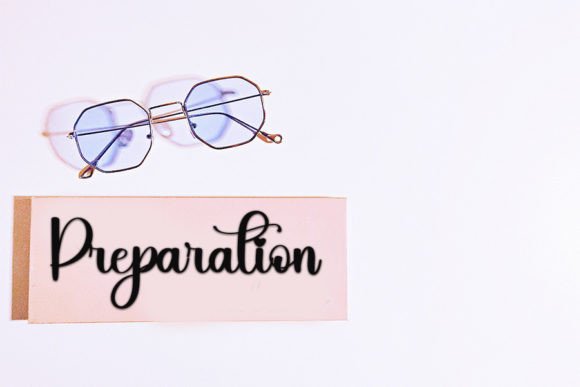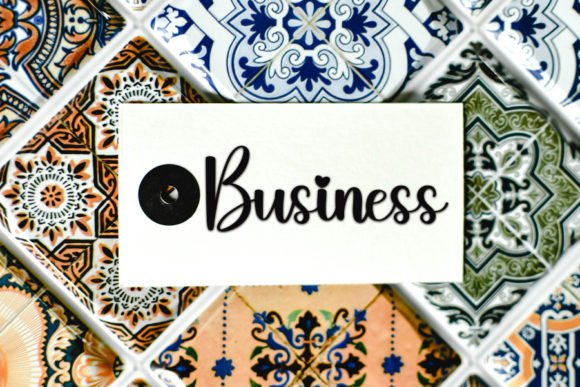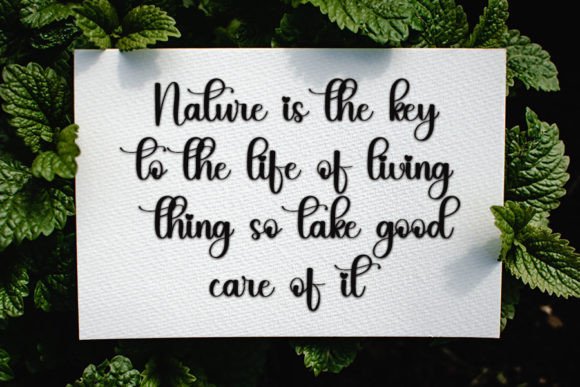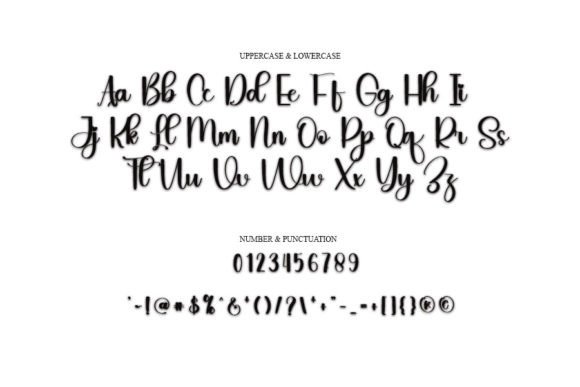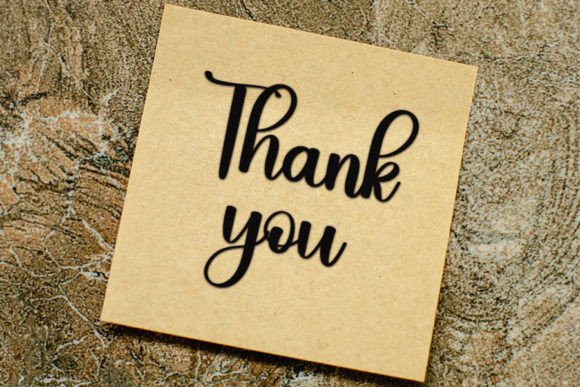
Introduction to Longday Font
Have you ever found yourself staring at a blank page, a blank screen, or a blank canvas, searching for the perfect font to bring your creative vision to life? That’s exactly where I was when I stumbled upon the Longday Font. Its beautiful, handwritten style is like a breath of fresh air, infusing your project with a touch of elegance and sophistication. Whether you’re working on a logo, business card, or social media post, the Longday Font is the perfect design resource to elevate your creative project.
Key Features of Longday Font
- Unique and creative design perfect for various projects, including graphic design, digital art, and creative writing.
- High-quality font with a transparent background, ideal for designers who want to achieve a seamless look in their work.
- Features a high-resolution design (300 DPI) for crisp and clear text, suitable for printing and digital use.
- Designed to be versatile and adaptable, making it perfect for a wide range of creative projects and applications.
Honest Review: Longday Font
- ✨ The Longday Font has a beautiful, elegant feel to it that’s perfect for high-quality designs.
- ✨ The transparent background makes it incredibly versatile and easy to work with.
- ✨ The font is incredibly legible, even at smaller sizes.
- ⚠️ The font is only available in a limited number of weights and styles.
- ⚠️ It may not be suitable for bold, attention-grabbing headlines.
Tips for Getting the Most Out of the Longday Font
To get the most out of the Longday Font, be sure to experiment with different font sizes, colors, and layering techniques. This font is particularly well-suited for creating bold, eye-catching graphics and designs.
The Longday Font is commonly used for:
Graphic design projects
Digital art
Branding and marketing materials
Web design projects